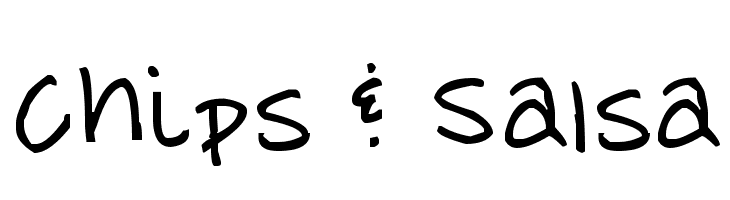
A playful, handwritten font with dynamic and informal strokes.
A bold, 3D italic font with a futuristic and dynamic style.
A decorative font made of heart shapes, perfect for romantic themes.
A dynamic and energetic script font with bold, flowing letterforms.
A bold, rounded font with a playful and robust appearance.
A bold, hand-painted style font with dynamic, brush-like strokes.
A bold, modern take on traditional blackletter styles with sharp angles and strong lines.
A modern, clean sans-serif font with uniform stroke width and excellent readability.